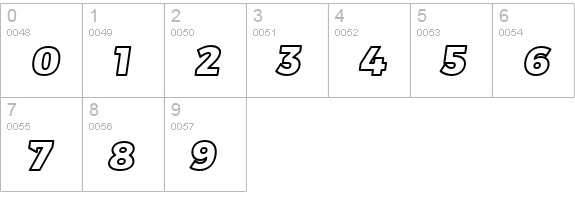
Trueno Black Outline Italic Font Details
Trueno Black Outline Italic is a maximum-weight, dramatic, italic variant in the Trueno typeface family \xE2\x80\x94 well suited to maximum-impact headlines, posters, and packaging.
Trueno Black Outline Italic font is a bold and striking typeface that exudes a sense of modernity and sophistication. Its sleek and edgy design is perfect for creating eye-catching headlines, logos, and branding materials. The unique combination of bold outlines and slanted italics adds a dynamic touch to any design project. This font is not only visually stunning but also highly versatile. Its strong presence and legibility make it an excellent choice for both digital and print media. Whether you are designing a website, a magazine layout, or a promotional poster, Trueno Black Outline Italic font will make your text stand out and leave a lasting impression on your audience. What sets Trueno Black Outline Italic font apart is not just its impressive aesthetics, but also its accessibility. It is freely available to download at FontsMarket.com, making it a valuable asset for designers on a budget or those seeking high-quality fonts without any cost. Downloading Trueno Black Outline Italic font from FontsMarket.com is a straightforward process, ensuring that you can start using this font in your projects in no time. Its compatibility with various design software and platforms further enhances its convenience and usability. In conclusion, Trueno Black Outline Italic font is a visually captivating and versatile typeface that will elevate your designs to new heights. With its unique combination of bold outlines and slanted italics, it adds a touch of modernity and sophistication to any project. And the best part? It is freely available to download at FontsMarket.com, making it a must-have for designers and creatives looking to make a bold statement without breaking their budget.